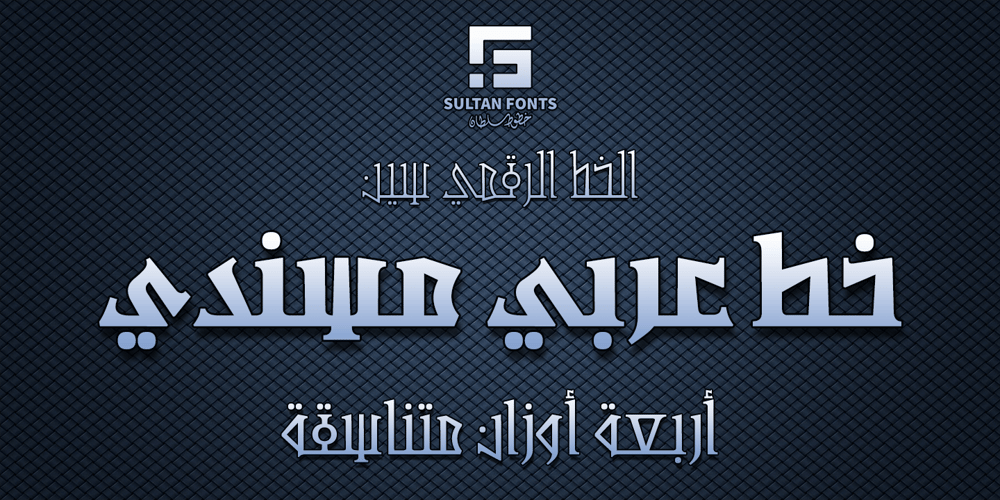
SF Seen
SF Seen font
SF Seen Font Family was designed by Sultan Maqtari and published by Sultan Fonts. SF Seen contains 4 styles and family package options. “Seen” is the name of the gods in Kingdom of Hadhramaut 3,000 years ago Kingdom of Hadhramaut – Wikipedia”Seen” Font Family Will Add a Splash Of Historical Musnad writing To Your DesignsComing in 4 Styles: Regular,Medium,Bold and Black, “Seen” Font Family is a serif typeface designed by Sultan Maqtari. Each style of the font is incredible in its own way, with attractive curves, spacing, and ligatures. Ideal for bold headlines, short sentences, unique logos, and general graphics, this typeface will effortlessly add a hint of Musnad writing and a splash of Amazing past to any design.”سين” اسم آلهة في مملكة حضرموت قبل ٣٠٠٠ عامستضيف مجموعة خطوط “سين” لمسة من كتابات المسند التاريخية إلى تصاميمك.تأتي عائلة الخطوط “سين” بأربعة أنماط: عادي،متوسط،عريض واسود ، وهي عبارة عن خط مزخرف صممه سلطان المقطري. كل نمط من الخط لا يصدق بطريقته الخاصة ، مع منحنيات جذابة ، ومسافات ، ووصلة ربط. مثالي للعناوين العريضة والجمل القصيرة والشعارات الفريدة والرسومات العامة ، سيضيف هذا الخط دون عناء لمسة من كتابة المسند ونفحة من الماضي المذهل إلى أي تصميم.